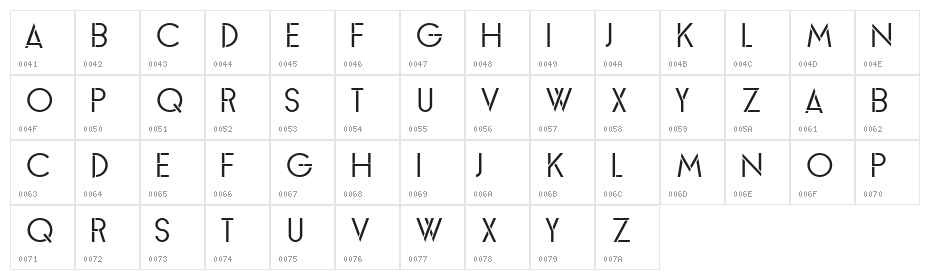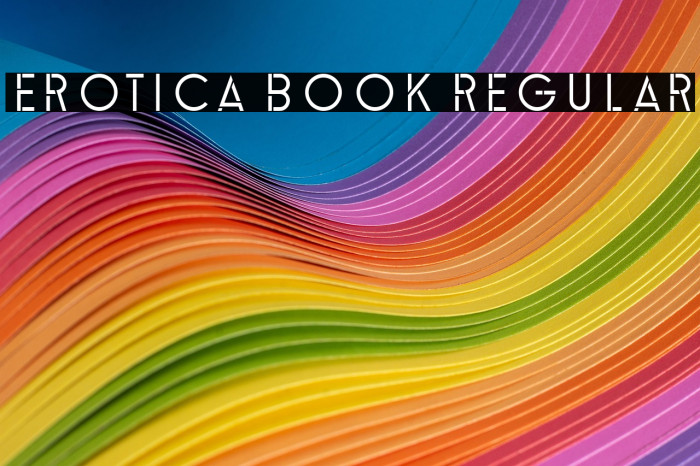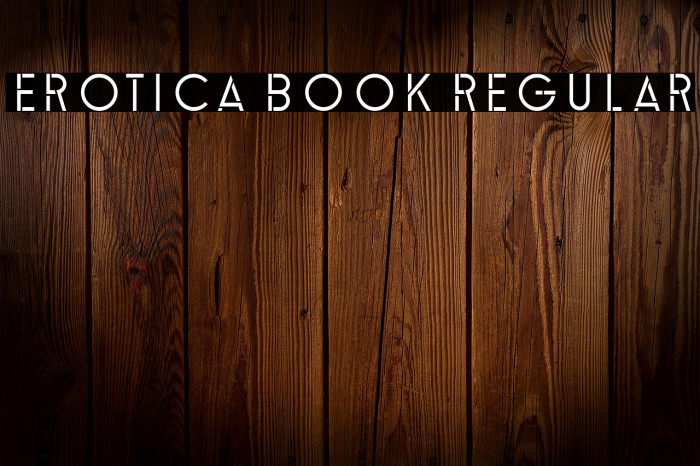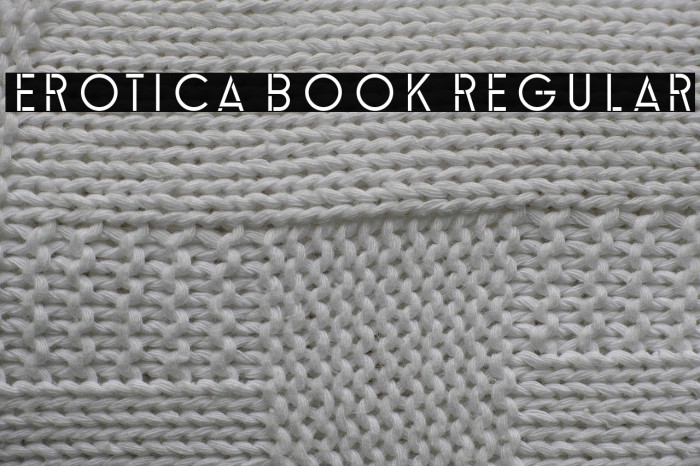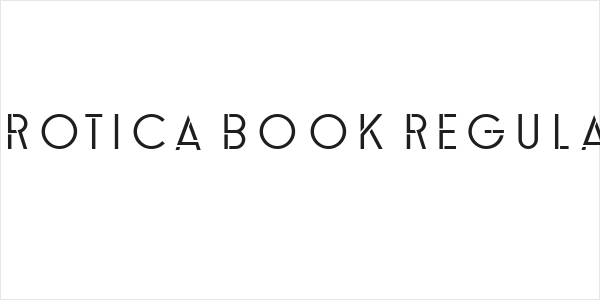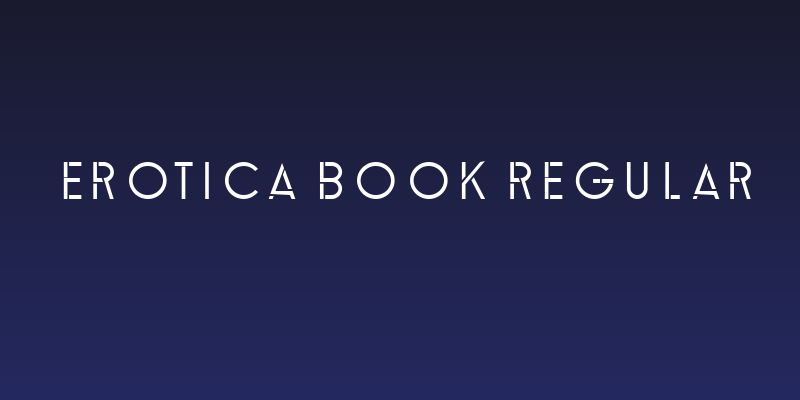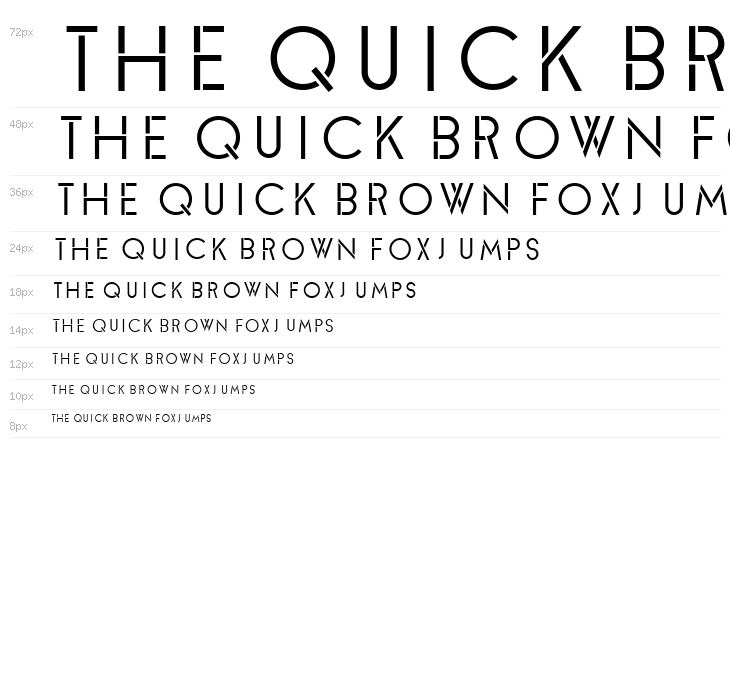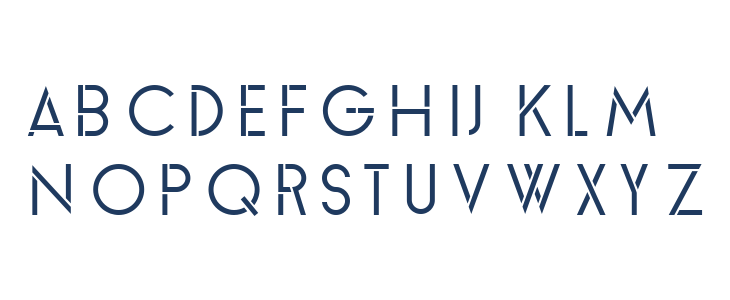
Erotica Book Regular Font
Erotica Book Regular Description
This font features a modern and geometric design with clean lines and a minimalist aesthetic. The characters are composed of straight lines and sharp angles, giving it a futuristic and sleek appearance. The uppercase letters are uniform in height, creating a cohesive and structured look. The font's style is both elegant and bold, making it suitable for contemporary design projects. Its unique character shapes, such as the diagonal cuts in letters like 'A' and 'R', add a distinctive flair. The overall design is balanced and visually appealing, making it versatile for various applications.
| Proposed Projects | Ideal for branding, logos, headlines, and editorial design where a modern and sleek look is desired. |